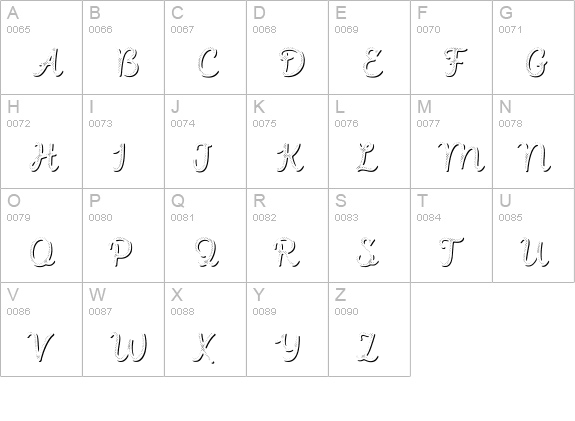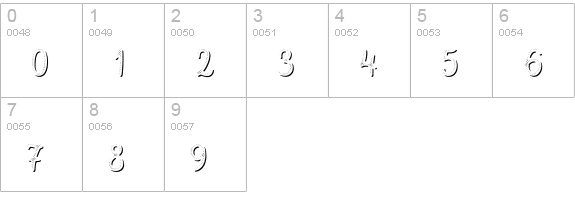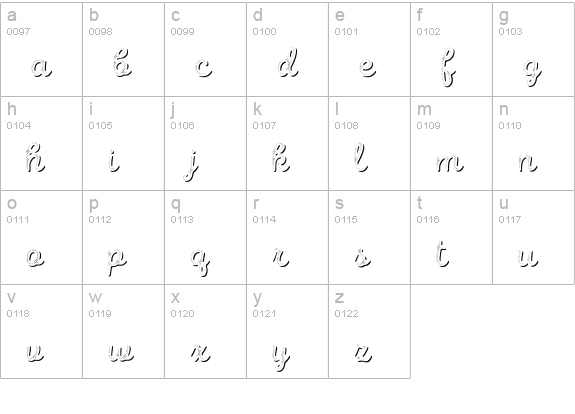
Intro Script R H1 Shade Font Details
The Intro Script R H1 Shade font is a stunning display font that exudes elegance and sophistication. Its intricate design features intricate letterforms with delicate shade detailing, making it perfect for adding a touch of luxury to your projects. This font is ideal for creating eye-catching headlines, titles, and branding materials. Best of all, the Intro Script R H1 Shade font is available for free download at FontsMarket.com. With its unique style and high-quality design, this font is sure to make a statement in any design project. Download it today and elevate your designs with this beautiful and versatile typeface.